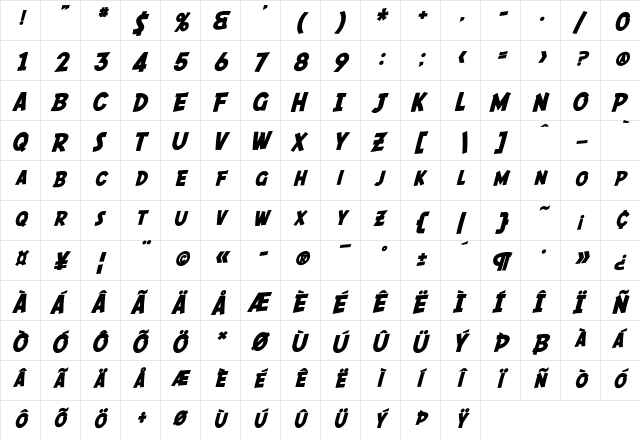
SF Comic Script Bold
Design Context for SF Comic Script Typeface
SF Comic Script has an approachable, lighthearted character — its loose, expressive forms are well-suited to children's content, casual branding, and fun-first design.
Great for children's books, toy packaging, family event branding, and casual consumer-facing design.
Font Pairing: Pairs well with a rounded or humanist sans for body copy, maintaining the friendly tone without relying on SF Comic Script to carry extended reading.
Pro Tip: Avoid using SF Comic Script for long passages of text — it works best for headlines, labels, and short calls to action.